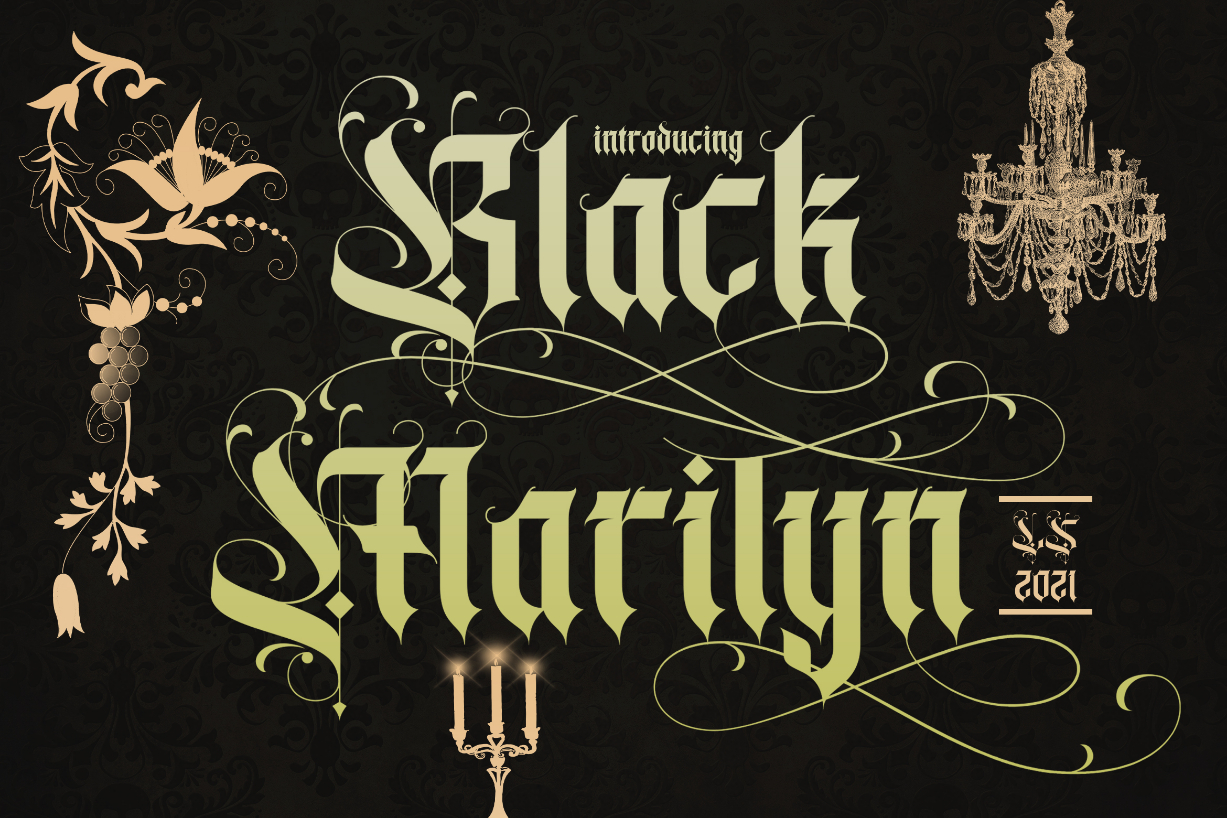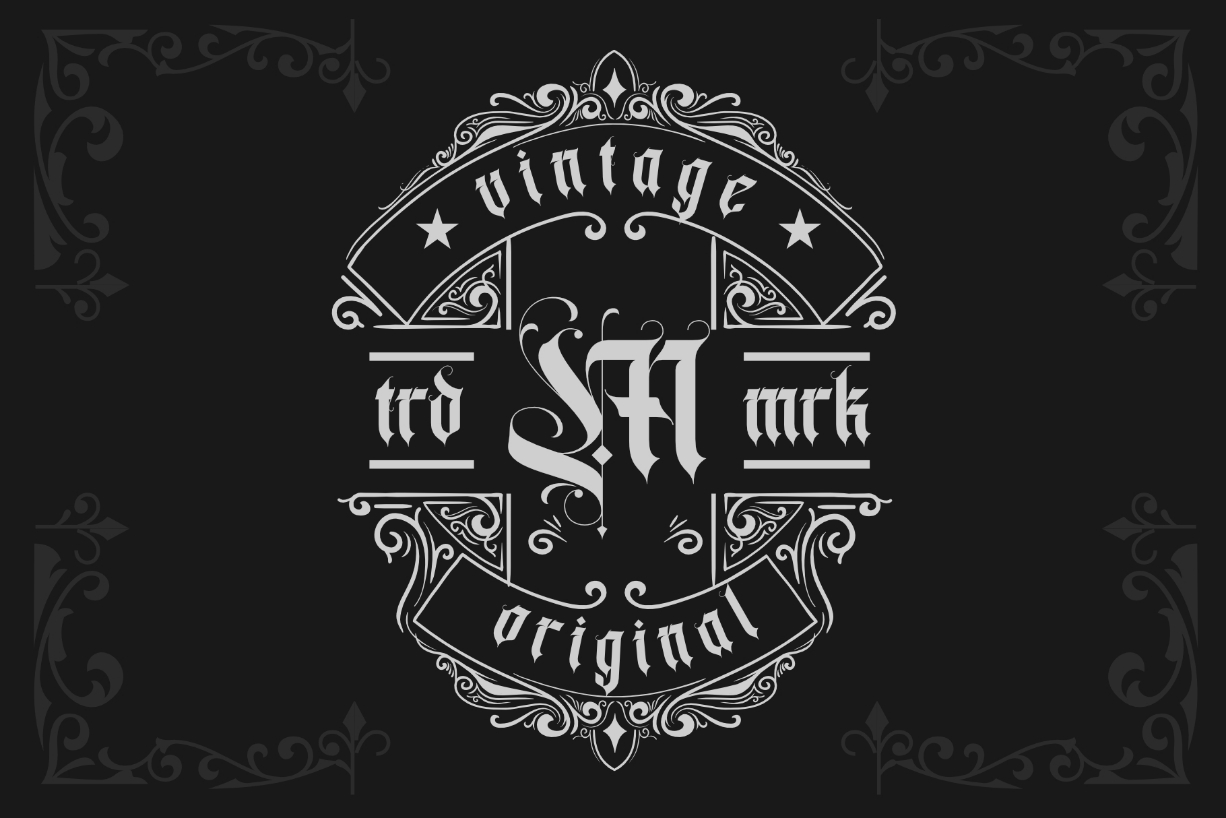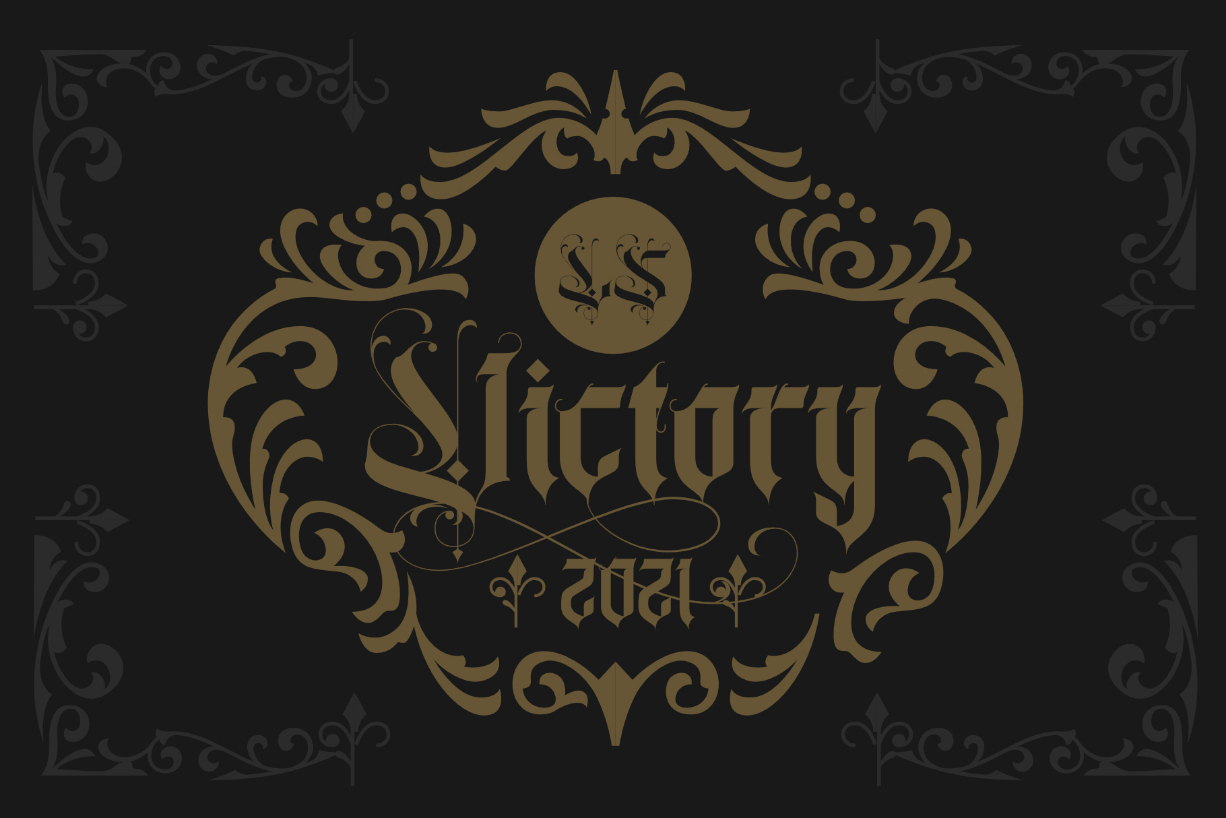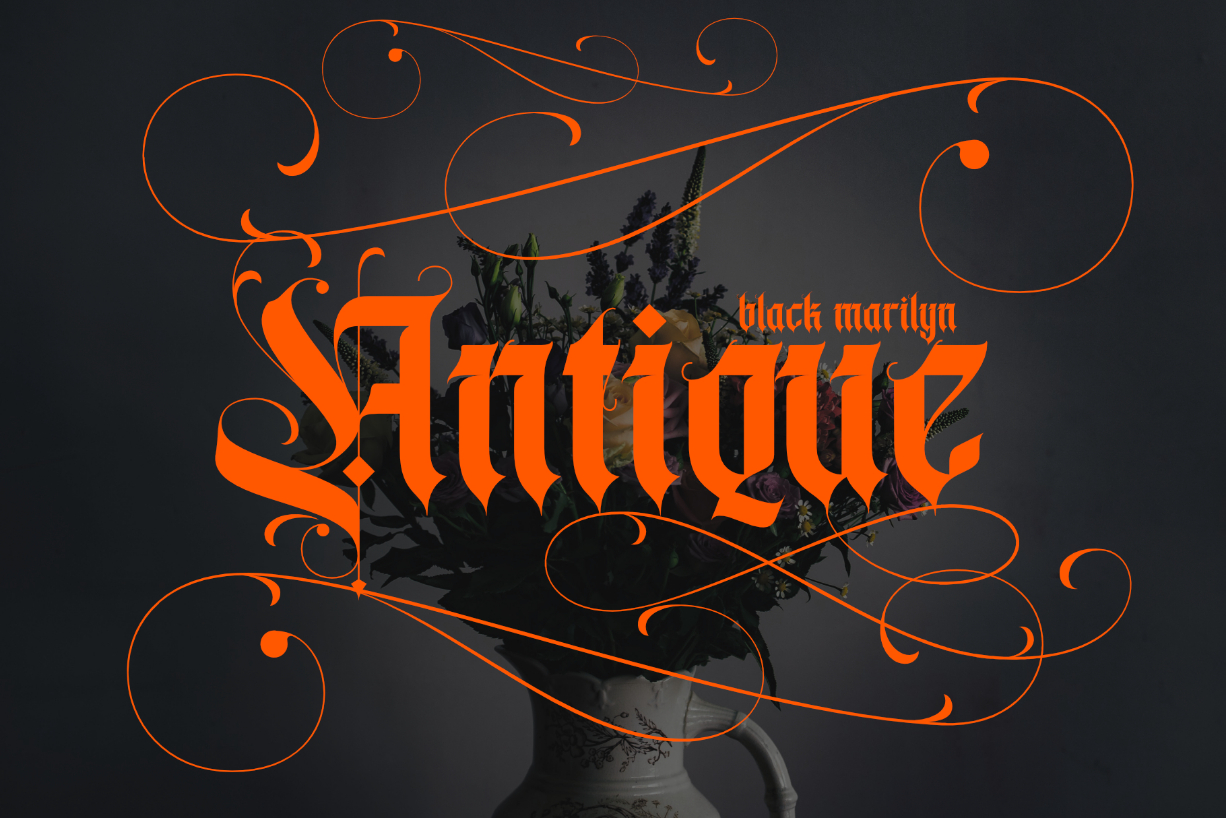
About Black Marilyn Font
Black Marilyn is a cool, bold and authentic blackletter font. Masterfully designed to become a true favorite, this font has the potential to bring each of your creative ideas to the highest level!